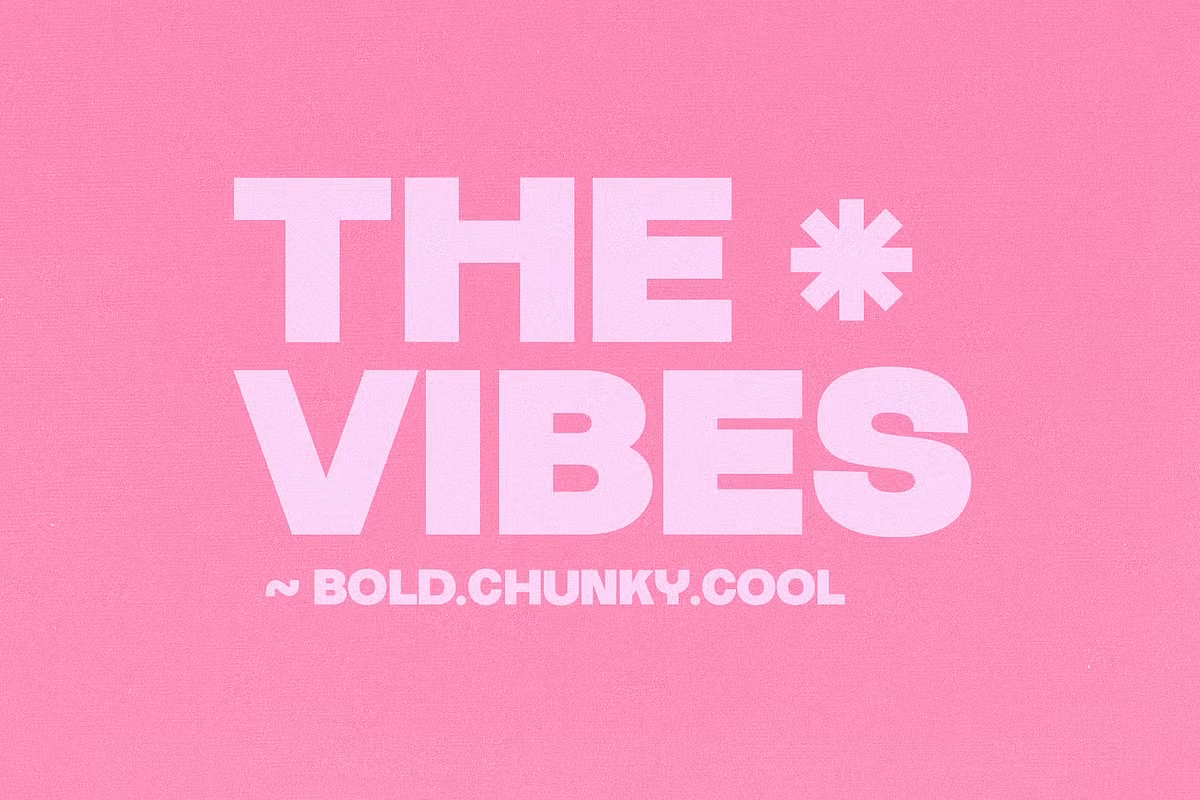
The Vibes | Bold Sans Font Free Download
The Vibes | Bold Sans Font Free Download is a modern, bold sans-serif typeface designed to make a strong and confident statement in your designs. With its clean lines, geometric structure, and high-impact presence, this font is perfect for headlines, logos, branding, posters, and any creative project that demands attention.
The Vibes brings a contemporary, stylish edge to your typography, making it ideal for tech brands, marketing materials, social media graphics, and more. Its bold design ensures legibility even in large formats, while its sleek, minimalist style gives it a fresh, modern feel.